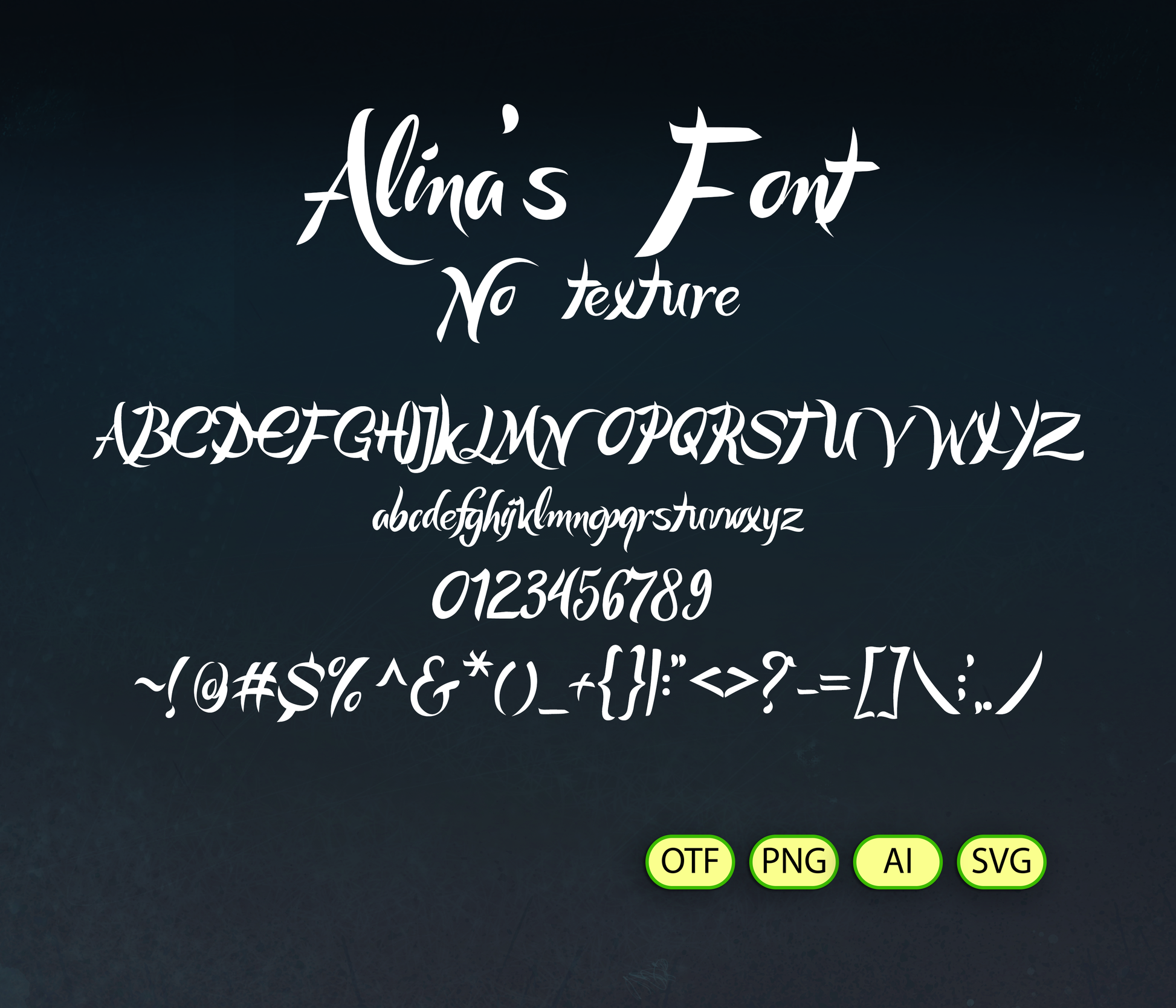
Magical Lamp Wishes Font
Journey to a whole new world with our Magical Lamp Wishes Font! This enchanting typeface captures the essence of Arabian nights, flying carpets, and wish-granting genies. Perfect for mystical designs, children's projects, and anyone looking to add a touch of exotic adventure to their creations.
What is the Magical Lamp Wishes font?
Imagine a font that embodies the mystery and wonder of a thousand and one nights. Our Magical Lamp Wishes font features flowing, elegant letterforms that seem to dance like smoke from an enchanted lamp, complete with subtle nods to Arabic calligraphy and desert landscapes.
• Comprehensive Character Set: Offers a wide range of characters, including numbers and special symbols.